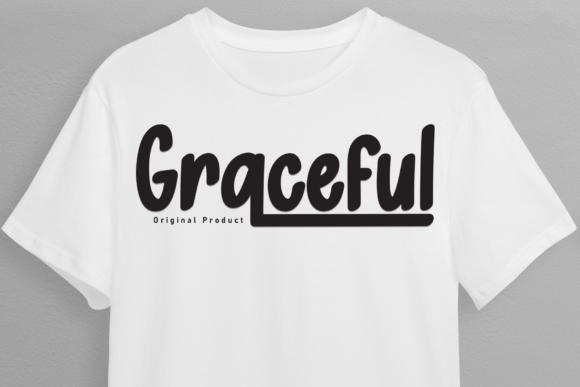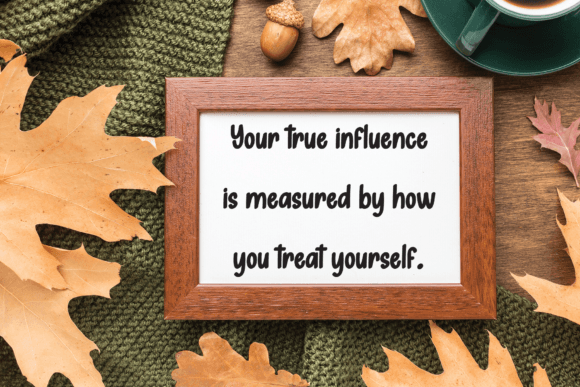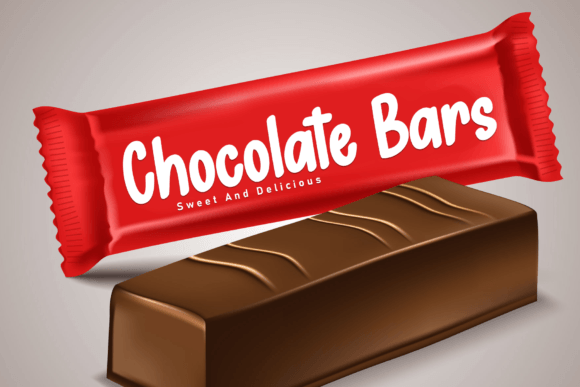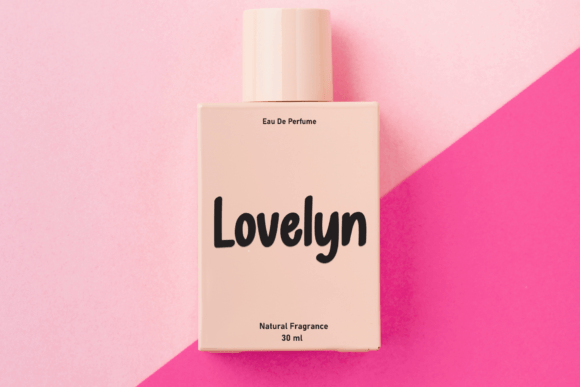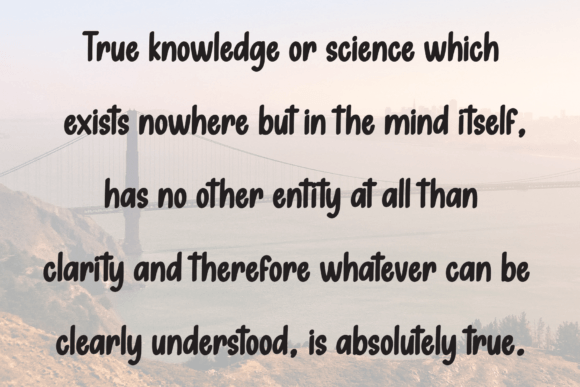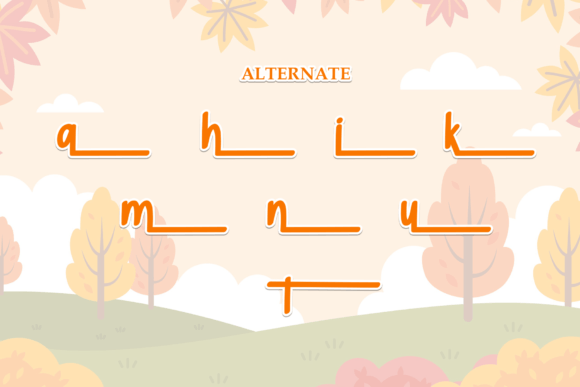
Introducing Autumnal Font: The Sweet and Friendly Handwritten Display Font
Are you looking for a font that can add a touch of warmth and personality to your designs? Look no further than Autumnal Font, a sweet and friendly handwritten display font that’s perfect for creating eye-catching and engaging content. In this article, we’ll take a closer look at Autumnal Font, its features, and how you can use it to elevate your designs.
What is Autumnal Font?
Autumnal Font is a beautiful handwritten display font that’s designed to bring a sense of fun and playfulness to your designs. With its cute and charming lettering style, this font is ideal for writing wedding invitations, cards, or any other design that might need a fun touch. Whether you’re a designer, crafter, or DIY enthusiast, Autumnal Font is a great addition to your font collection.
Key Features of Autumnal Font
- Handwritten style: Autumnal Font features a beautiful handwritten style that’s perfect for creating personal and engaging content.
- Sweet and friendly: The font has a sweet and friendly tone that’s ideal for designs that require a touch of warmth and personality.
- Cute and fun: Autumnal Font is perfect for designs that require a fun and playful touch, such as wedding invitations, birthday cards, and more.
- Display font: This font is designed to be used as a display font, making it perfect for headlines, titles, and other prominent text elements.
Use Cases for Autumnal Font
Autumnal Font is a versatile font that can be used in a variety of design projects. Here are some use cases to get you started:
- Wedding invitations: Add a touch of romance and whimsy to your wedding invitations with Autumnal Font.
- Cards and stationery: Use Autumnal Font to create beautiful and personalized cards, stationery, and other paper crafts.
- Social media graphics: Add a fun and playful touch to your social media graphics, such as Facebook posts, Instagram stories, and more.
- Signs and posters: Use Autumnal Font to create eye-catching signs and posters for events, promotions, and more.
Tips for Using Autumnal Font
Here are some tips for using Autumnal Font in your designs:
- Pair with complementary fonts: Pair Autumnal Font with complementary fonts, such as serif or sans-serif fonts, to create visual interest and contrast.
- Use for headlines and titles: Use Autumnal Font for headlines and titles to add a touch of personality and whimsy to your designs.
- Experiment with colors: Experiment with different colors and textures to add depth and visual interest to your designs.
- Keep it simple: Keep your design simple and clean to let Autumnal Font shine.
Autumnal Font is a sweet and friendly handwritten display font that’s perfect for adding a touch of warmth and personality to your designs. With its cute and fun lettering style, this font is ideal for writing wedding invitations, cards, or any other design that might need a fun touch. Whether you’re a designer, crafter, or DIY enthusiast, Autumnal Font is a great addition to your font collection. So why not give it a try and see how it can elevate your designs?